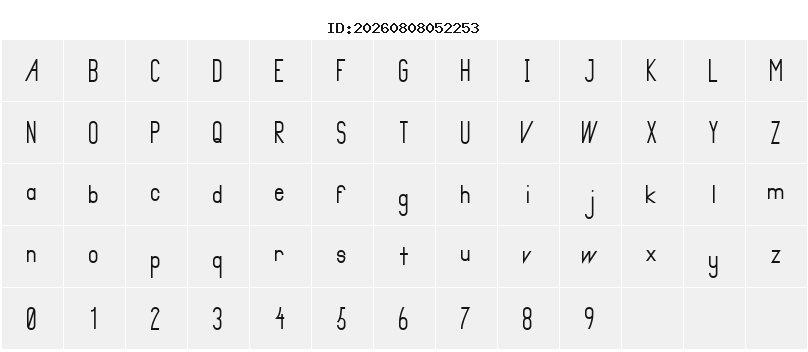
Primadona Bold Preview
• Font Name: Primadona Bold
• Designer: cenz qobbal
• Manufacturer: cenz qobbal
About Primadona Bold.ttf
Primadona Bold.ttf is a modern, elegant sans-serif font designed for ultimate readability and visual harmony. Perfect for branding, headlines, web design, and print materials.